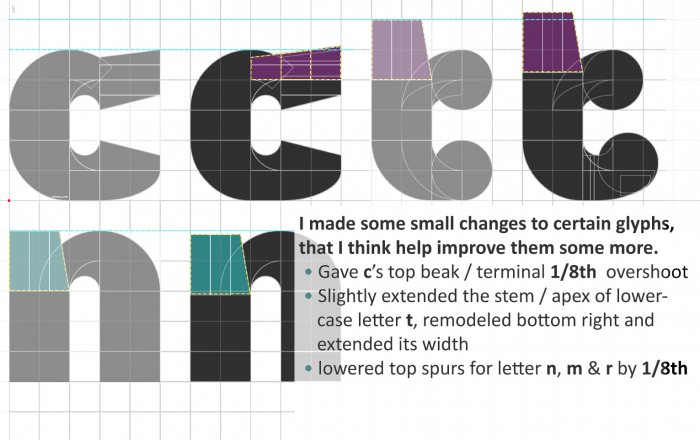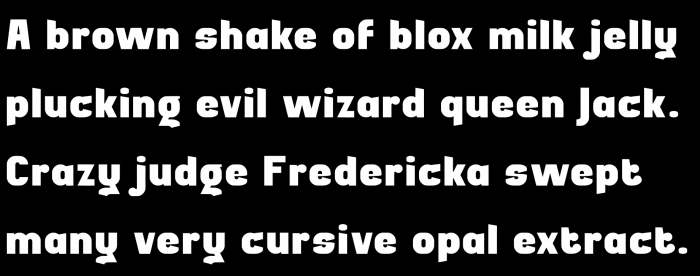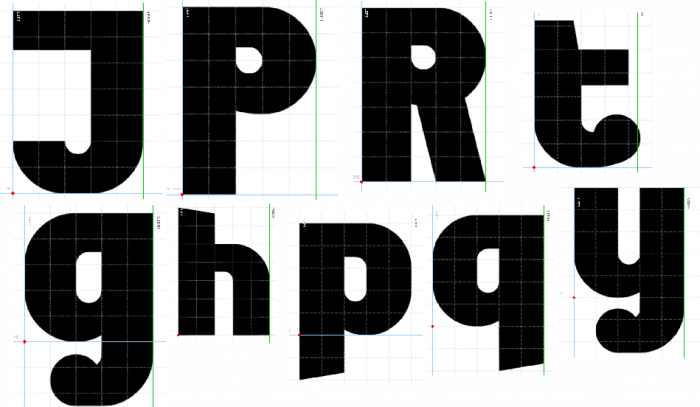
Bolden
Just a simple bold font.
feel free to give critique, as long as you have something helpful to say.
i would especially appriciate help with the greek.
additional info:
X height: 5
Cap height: 8
letter width: 5
Filters: 2x2
This font is so cool, especially the "g"!
@Kiên Trung: thanks! And I agree, the lowercase "g" is my favorite as well.
@Gr4ftY: Maybe it sounds strange, but the Υ can be designed similar to an Y.
@Kiên Trung: once again, thanks for your help! the Υ looks much better now.
Congratulations! I would like to see more characters in the font (accents and other diacritics). And I add a suggestion for the "y" for you to consider if you like it.
Oh, I forgot to mention in the above image that the spurs both lowercase letters p & q had also been lowered by 1/8th unit.
Lowering the spurs a tad bit bellow the vertex of a shoulder curve on such letters creates the impression of optical compensation!
Add greek lowercase letter alpha because the lowercase Latin A is only one storey. Fix the lowercase Latin A.
@SFBTEF23GotCatrinityFont There are two forms of the lowercase a, one of which is the single-storey a—which this font has—that appears commonly in handwriting, and some fonts intended to be read by children, and italic fonts (although some italic fonts have the double-storey form).